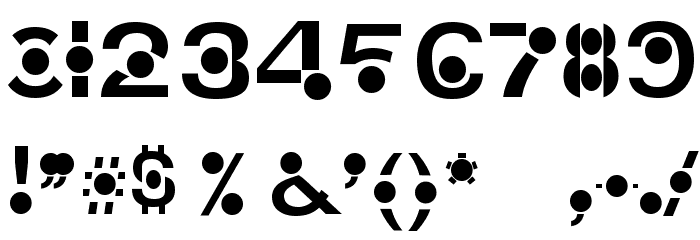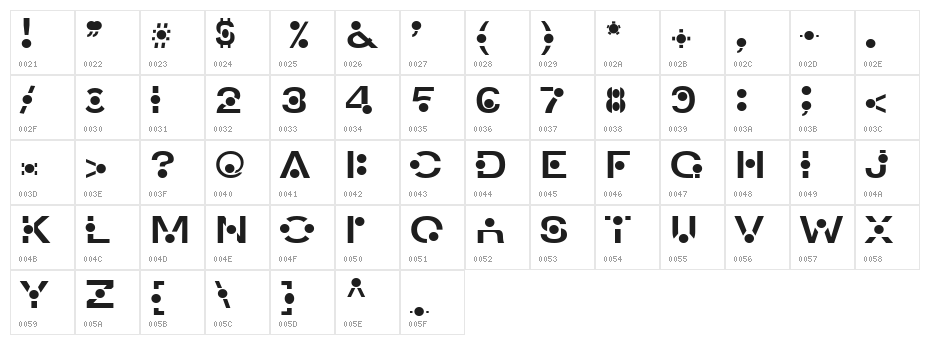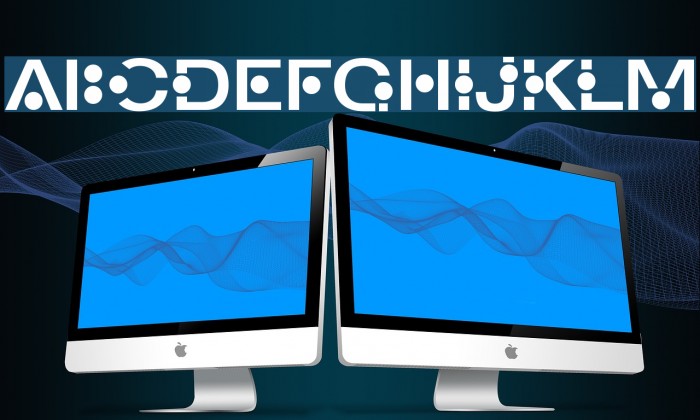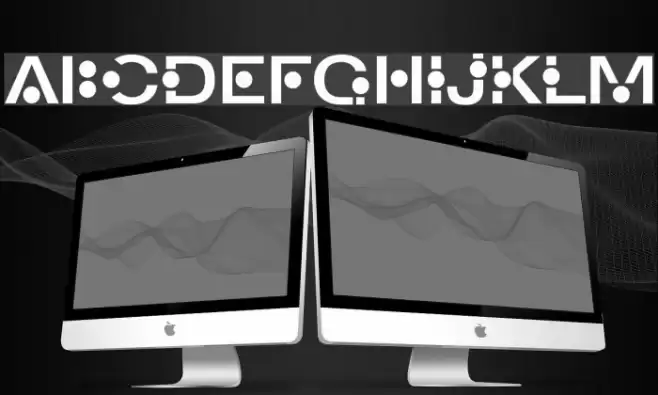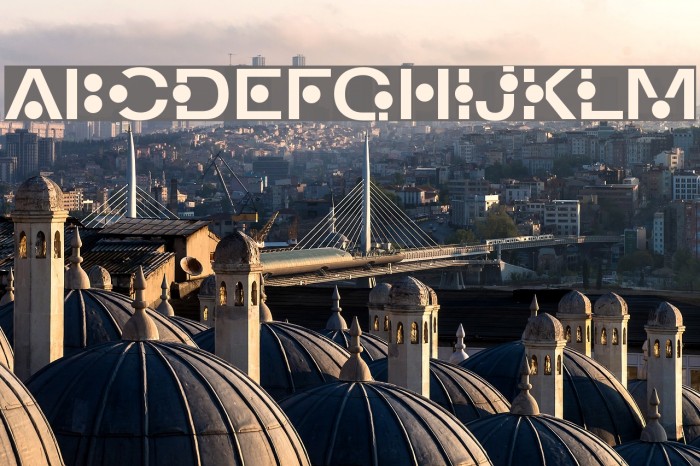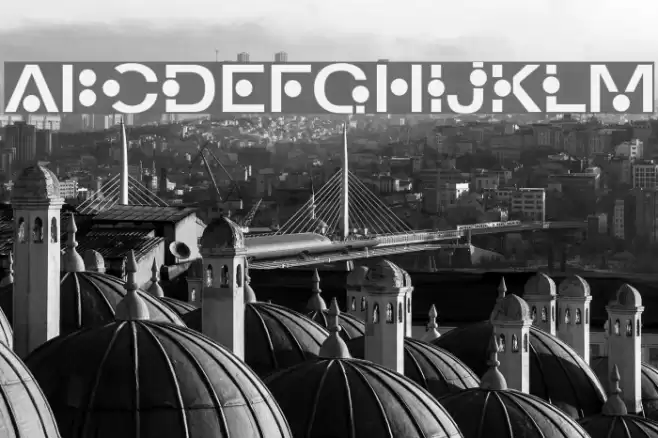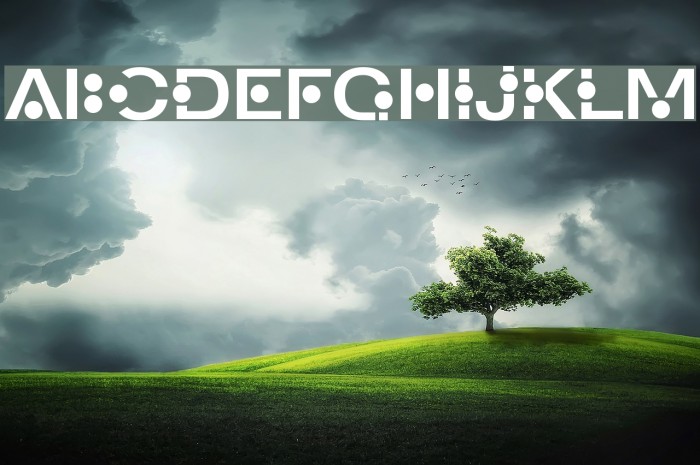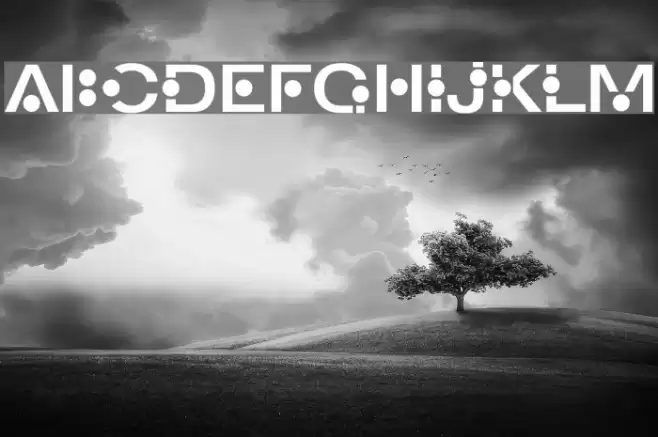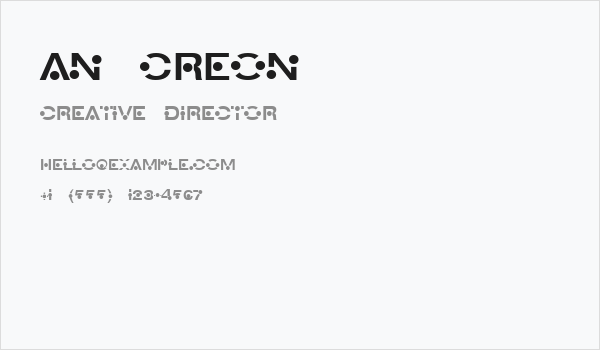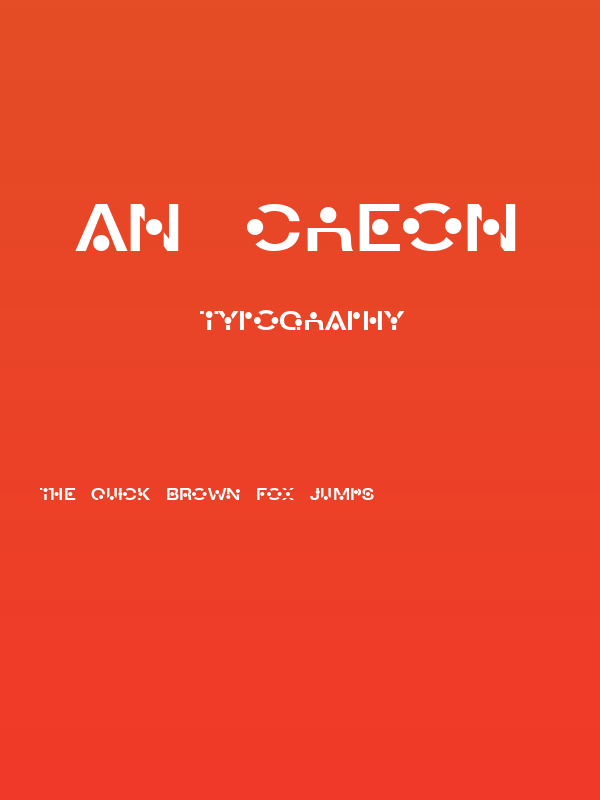
An Creon Font
An Creon Description
This font features a bold and futuristic design with geometric elements and circular cutouts that create a unique, modern appearance. The characters are constructed with a combination of solid lines and circular voids, giving them a distinct, almost digital feel. The uppercase and lowercase letters maintain a consistent style, with the circular elements adding a playful yet structured touch. Numbers and special characters follow the same design principles, ensuring a cohesive look across all glyphs. This font is ideal for projects that require a contemporary and innovative aesthetic.
| Proposed Projects | Ideal for tech branding, sci-fi posters, modern art projects, and digital interfaces. |